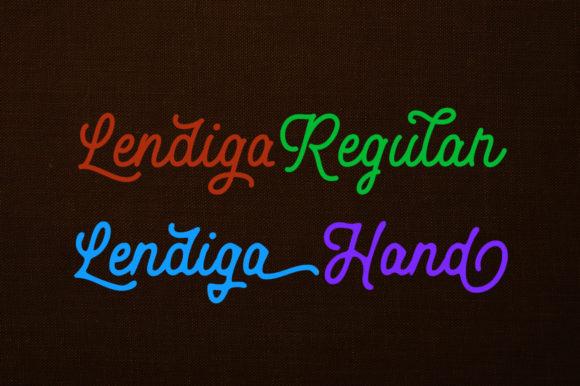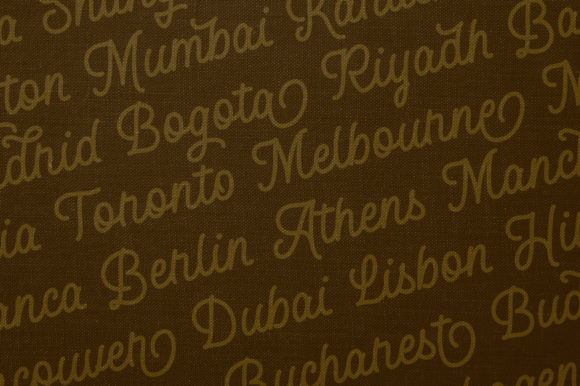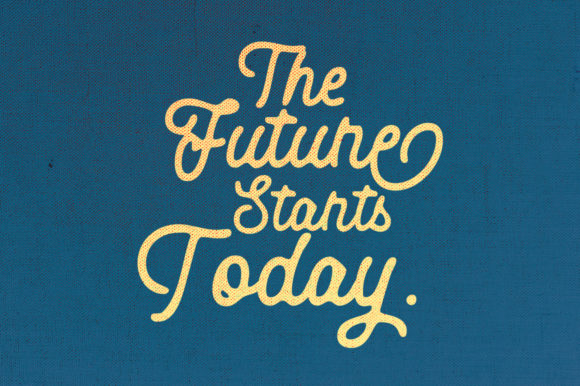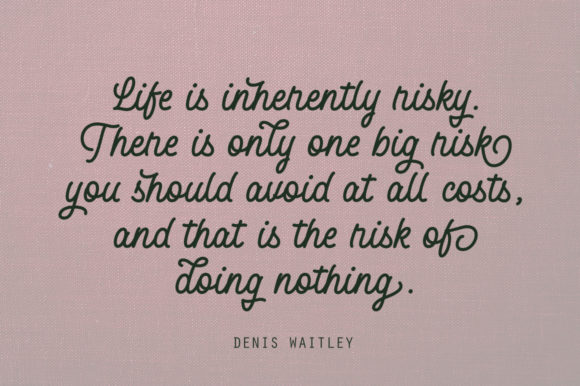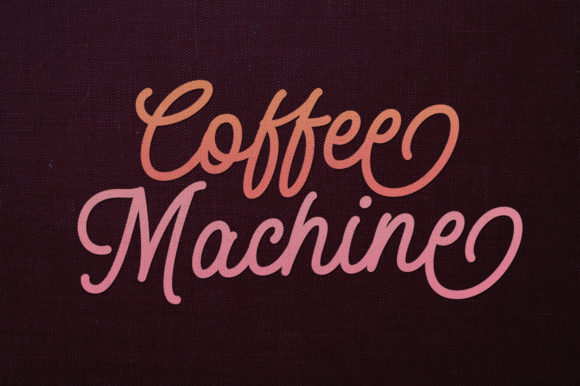
Introduction to Lendiga Font
Lendiga is a charming and light handwritten font with a retro feel.
Get inspired by its lovely charm, and turn any design idea into a stand out .
Key Features of Lendiga Font
Why Choose Lendiga Font?
Lendiga Font offers exceptional quality and versatility, making it a valuable addition to your design toolkit. Whether you’re creating for personal projects or commercial use, Lendiga Font delivers professional results.